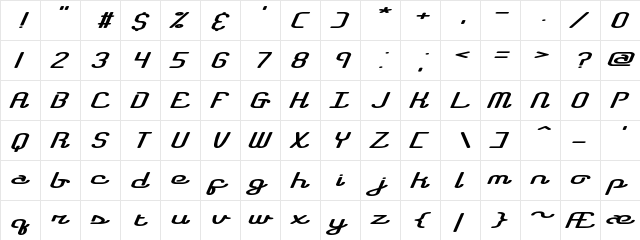
Registry (BRK) Regular
Design Context for Registry (BRK) Typeface
Registry (BRK) is a composed and adaptable typeface that performs quietly and consistently across a wide range of design contexts.